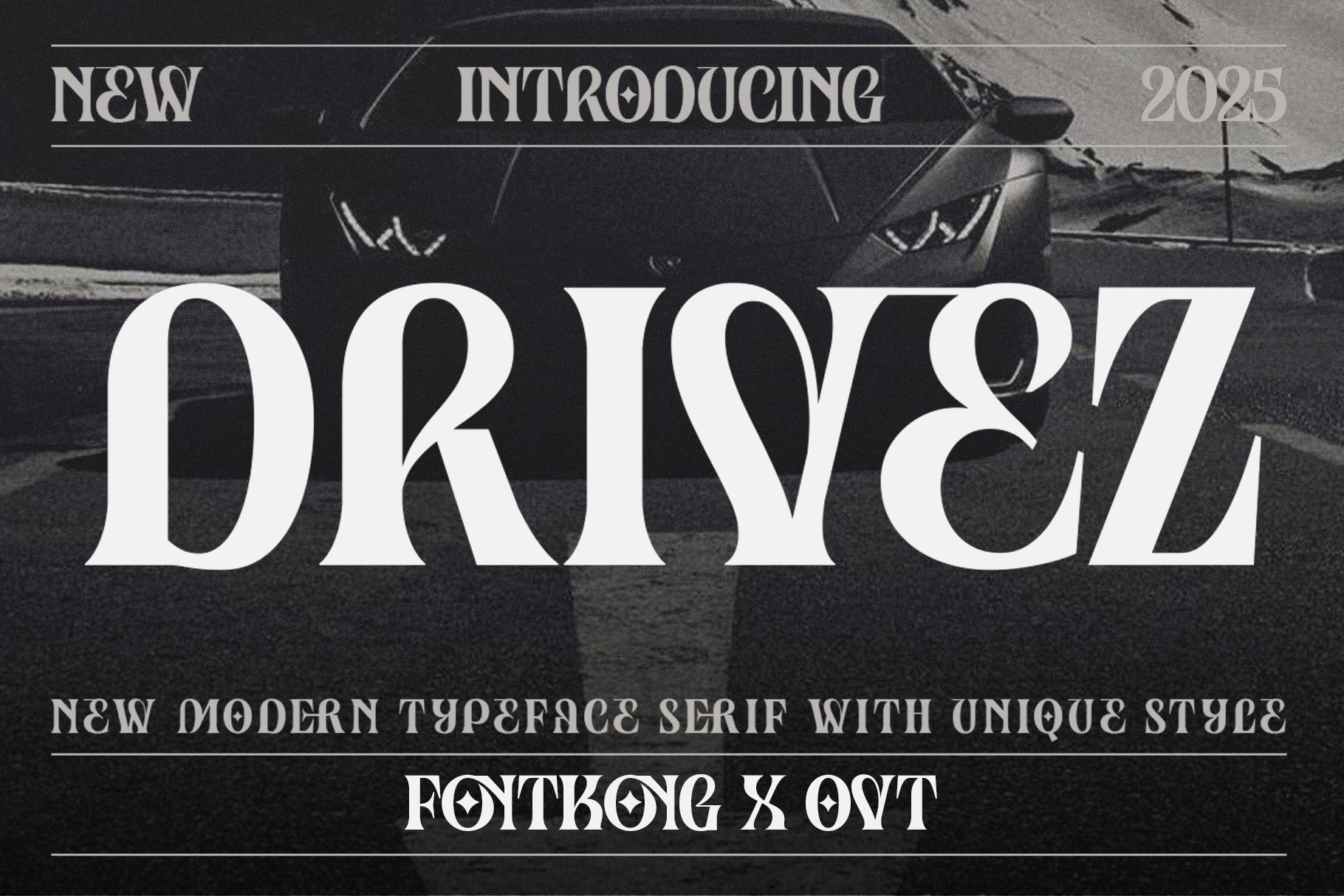
Drivez - New Modern Serif Typeface
Drivez - New Modern Serif Typeface with Unique Style
Introducing "Drivez," a new modern serif typeface with a unique style that sets your designs apart. Perfect for designers, typographers, and creatives seeking to infuse their projects with a blend of modernity and sophistication, Drivez delivers a fresh and distinctive look that commands attention.
Ideal for branding, editorial design, logos, and high-end packaging, Drivez’s refined lines and unique character shapes provide a harmonious balance of elegance and originality. Each letter is meticulously crafted to ensure a polished and professional appearance, making your work truly memorable.
The "Drivez" font includes a complete set of uppercase and lowercase letters, numbers, and punctuation marks, providing versatility and flexibility for a wide range of design applications. Whether you’re developing a luxury brand identity or designing stylish editorial layouts, Drivez elevates your projects with its modern and unique serif style.
Add a touch of distinctive elegance to your designs with Drivez, a serif typeface that drives creativity and sophistication.